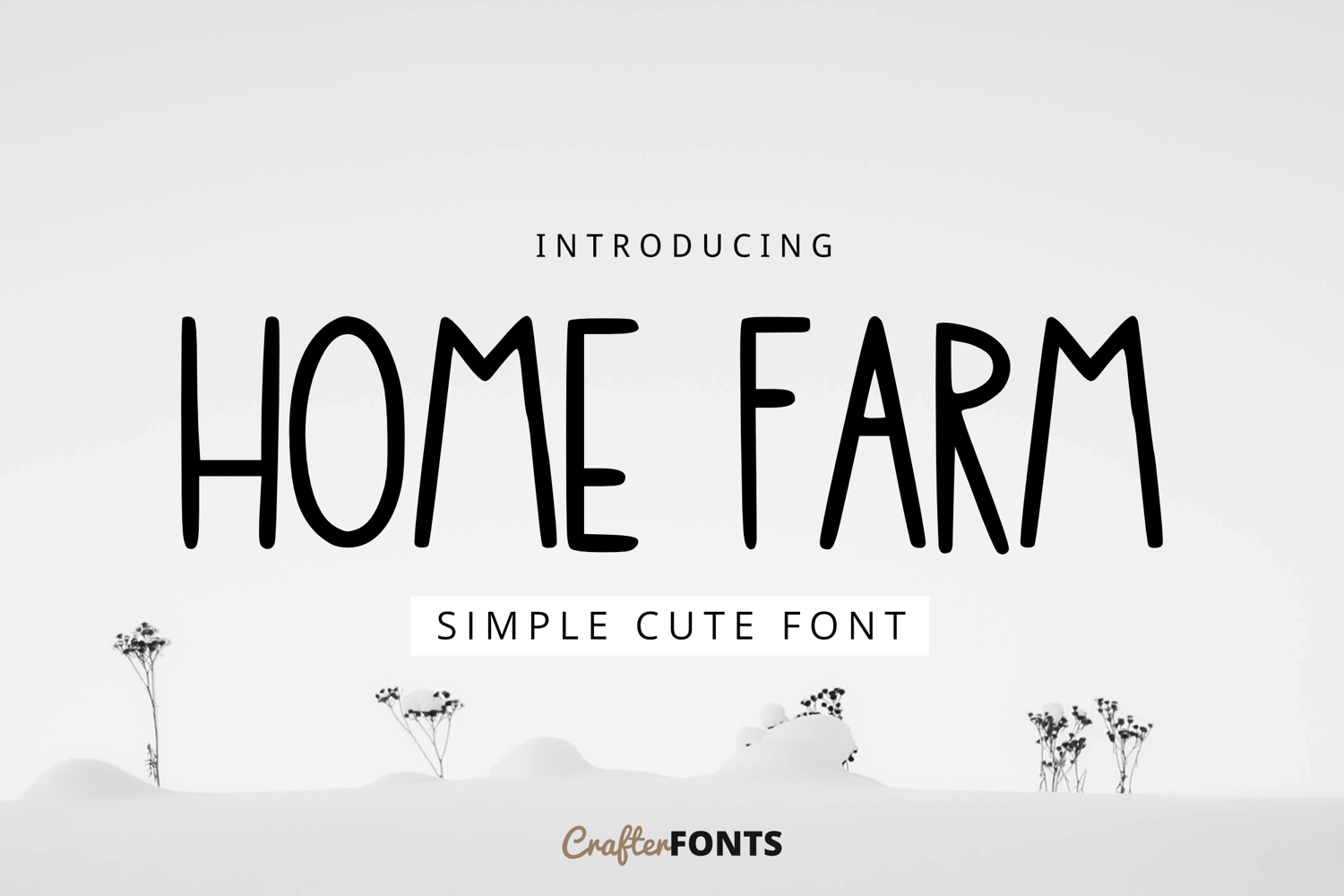
Home Farm Simple Cute Font
Home Farm Regular
Home Farm – Simple Cute Font
Bring a cozy, rustic charm to your creative designs with Home Farm, a simple and cute display font featuring a tall, slender, and friendly handwritten style. With its clean lines and playful home-cooked aesthetic, it is perfectly suited for farmhouse decor, DIY craft projects, children's books, custom greeting cards, kitchen product packaging, and casual social media graphics.